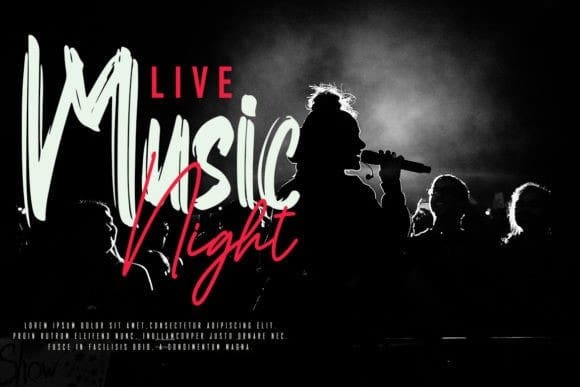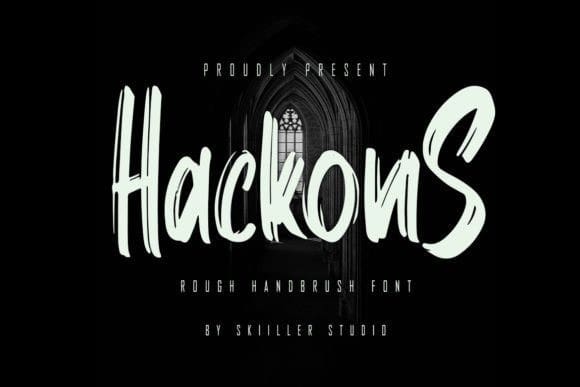
Hackons Brush Font
Hackons Brush Font is a modern handwritten brush font, crafted to give your headlines and logotype projects a stylish touch. This font reads as strong, confident, and dynamic and can add tons of urban character to your designs.